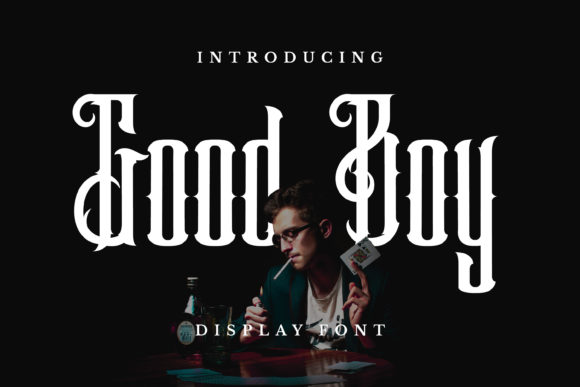
Introducing Good Boy Font: The Ultimate Gothic and Blackletter Typeface
Are you tired of using the same old fonts for your designs? Do you want to add a touch of uniqueness and edge to your creations? Look no further than Good Boy Font, a stunning gothic and blackletter typeface that’s sure to make your projects stand out. In this article, we’ll dive into the features and benefits of Good Boy Font, and explore how it can elevate your designs to the next level.
The Power of Gothic and Blackletter Fonts
Gothic and blackletter fonts have been a staple of design for centuries, evoking a sense of mystery, elegance, and sophistication. These fonts are characterized by their dramatic flourishes, intricate details, and bold letterforms. Good Boy Font takes these classic elements and turns them up a notch, with a modern twist that’s both fresh and timeless.
What Makes Good Boy Font So Special?
Good Boy Font is more than just a pretty face – it’s a versatile and highly functional typeface that’s designed to meet the needs of modern designers. Here are just a few of the features that set it apart:
• Uniquely Shaped Letters: Good Boy Font features letters that are both bold and beautifully crafted, with unique shapes and flourishes that add a touch of drama to any design.
• Imposing Presence: This font is designed to make a statement, with tall letterforms and a commanding presence that’s perfect for headlines, titles, and other display text.
• Highly Versatile: Whether you’re designing a logo, a poster, or a website, Good Boy Font is the perfect choice. Its versatility and range make it suitable for a wide range of projects and applications.
Who Can Benefit from Good Boy Font?
Good Boy Font is perfect for designers, crafters, and anyone looking to add a touch of elegance and sophistication to their projects. Here are just a few examples of who can benefit from this amazing font:
• Graphic Designers: Whether you’re working on a logo, brochure, or website, Good Boy Font is a great choice for adding a touch of drama and flair to your designs.
• Crafters and Scrapbookers: Add a touch of elegance and whimsy to your craft projects with Good Boy Font, perfect for journaling, titles, and other creative applications.
• Web Designers: Use Good Boy Font to create stunning headlines, titles, and other display text for your website, adding a touch of sophistication and style to your online presence.
How to Use Good Boy Font in Your Designs
Using Good Boy Font in your designs is easy! Here are a few tips to get you started:
• Pair it with a Sans-Serif Font: Good Boy Font pairs perfectly with sans-serif fonts, creating a beautiful contrast that’s both elegant and modern.
• Use it for Headlines and Titles: Good Boy Font is perfect for headlines and titles, adding a touch of drama and flair to your designs.
• Experiment with Colors and Textures: Don’t be afraid to get creative with Good Boy Font – experiment with different colors, textures, and effects to add depth and interest to your designs.
Good Boy Font is an incredible gothic and blackletter typeface that’s sure to take your designs to the next level. With its uniquely shaped letters, imposing presence, and highly versatile nature, it’s the perfect choice for designers, crafters, and anyone looking to add a touch of elegance and sophistication to their projects. So why wait? Download Good Boy Font today and start creating stunning designs that will leave a lasting impression!